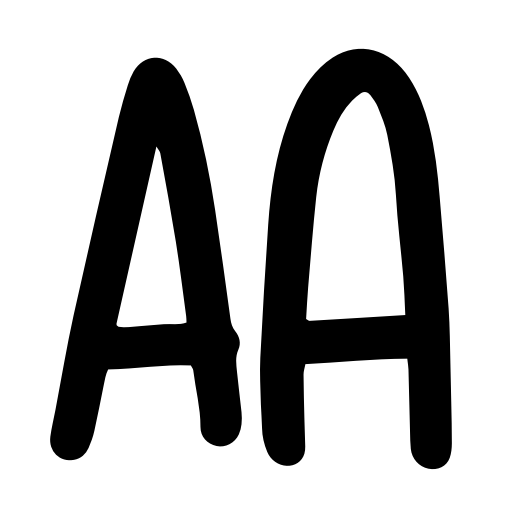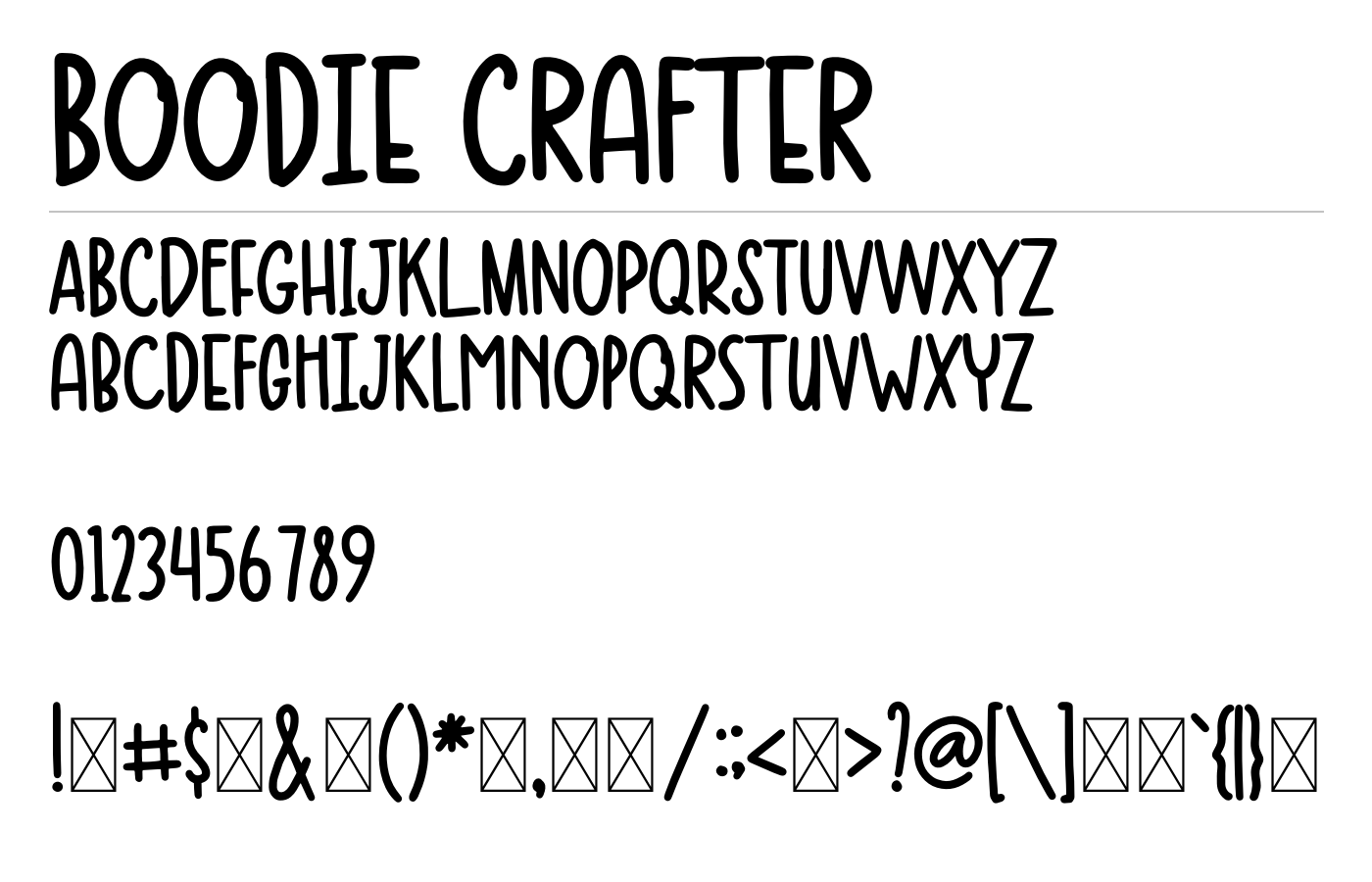
Boodie Crafter is a playful, hand-drawn sans serif font with a friendly and casual feel. Its tall, narrow letterforms and slightly irregular strokes give it a handcrafted charm, making it ideal for creative projects, children's materials, and informal branding that seeks a warm, approachable personality. This font works well in headlines, logos, and packaging where a fun and personal touch is desired.
Boodie Crafter Font